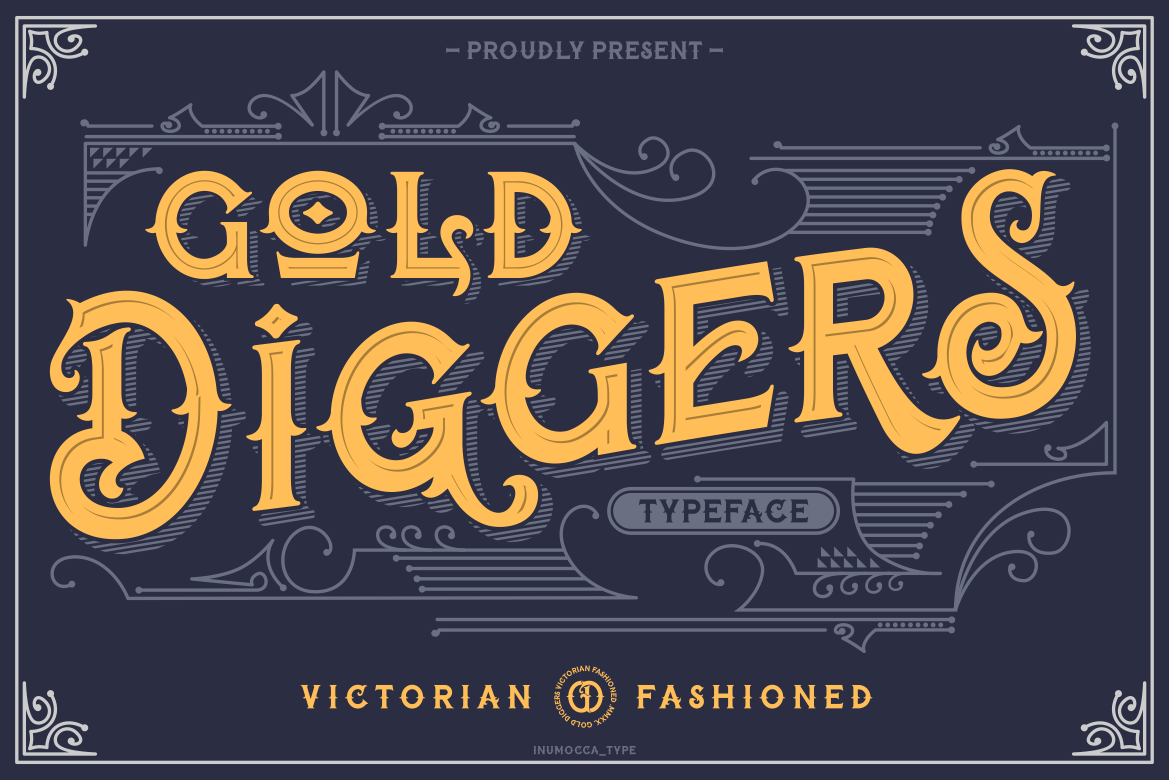
Gold Giggers
Gold Giggers is a font family published by inumoccatype.
Gold Diggers
Gold Diggers, inspired from Victorian Era with the ornamental and decorative font With Variant for the Capital Letters and alternates for changes the unique glyphs for design needs like Poster, logos, badges product, magazine with vintage taste and more your project design.
• Unique glyphs
• Multilingual Characters
• UPPERCASE
• Lowercase
• Numeric
• Symbol
• Punctuation Character
• Alternates